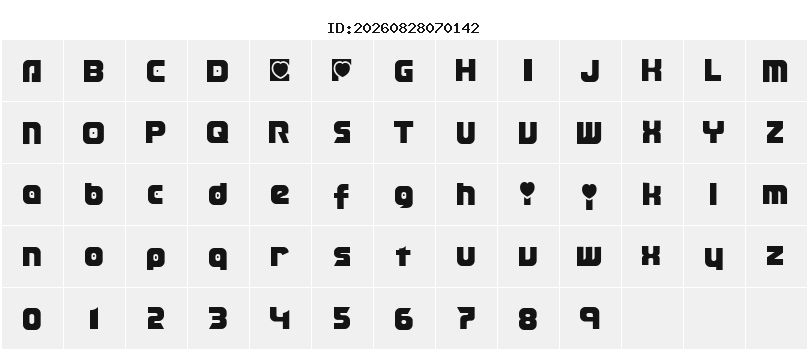
Transmaidens Preview
• Font Name: Transmaidens
• Full Font Name: Transmaidens Normal
About Transmaidens.ttf
Transmaidens.ttf is a modern, elegant sans-serif font designed for ultimate readability and visual harmony. Perfect for branding, headlines, web design, and print materials.